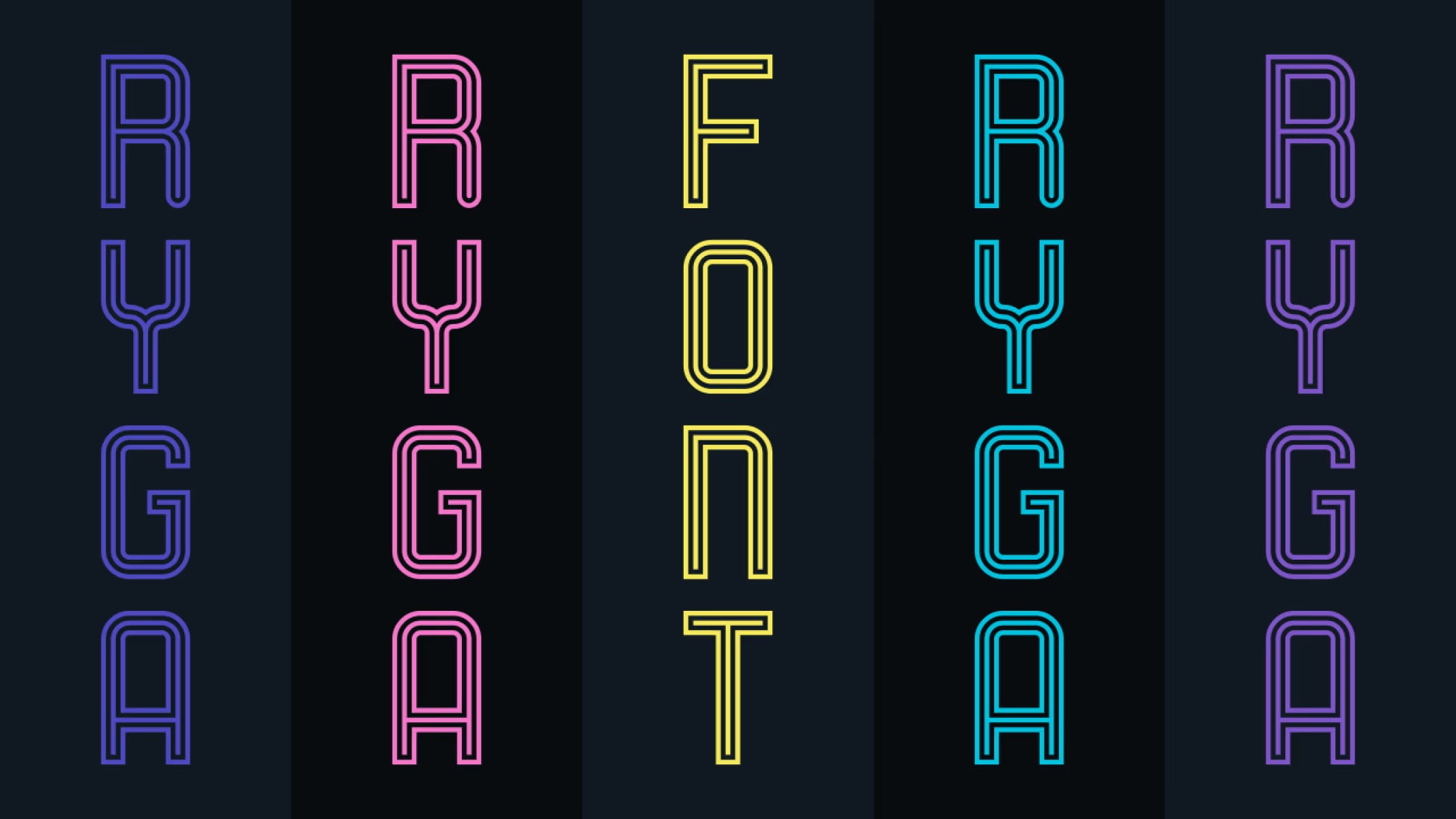
Ryga Font
Ryga Font is a clean and thoughtfully built typeface that works seamlessly for both professional branding and everyday creative uses. Ryga is a futuristic display typeface with a neon-outline feel and a crisp, technical rhythm. Its narrow, rounded letterforms are built from parallel inline strokes, giving the design a glowing tube-like structure without relying on texture or distress.
The font works well for sci-fi titles, gaming graphics, posters, music artwork, digital branding, and social media designs that need a sleek retro-tech edge.